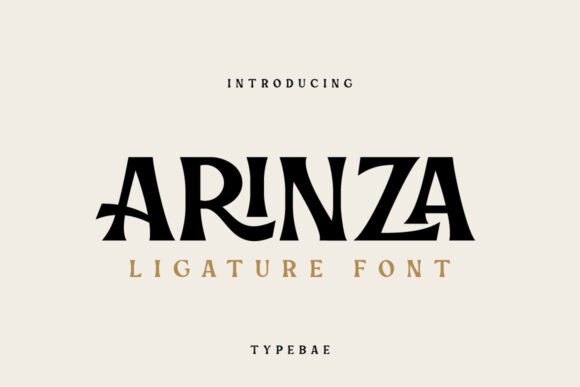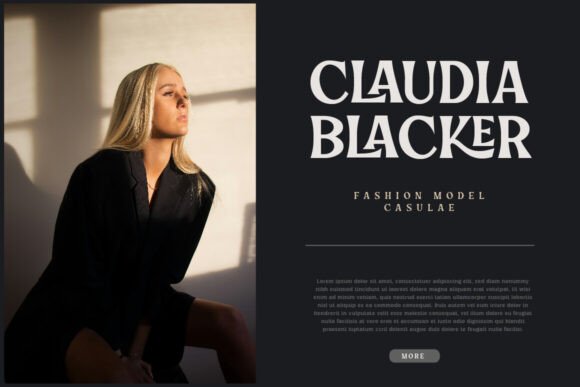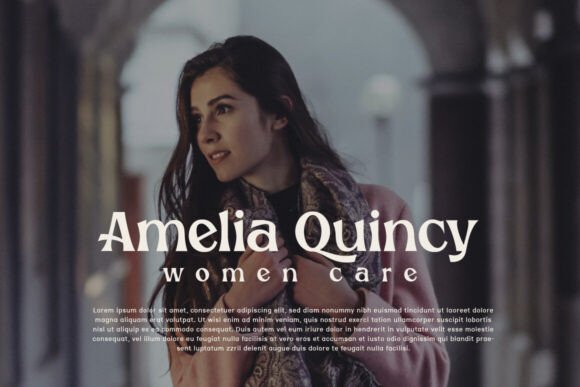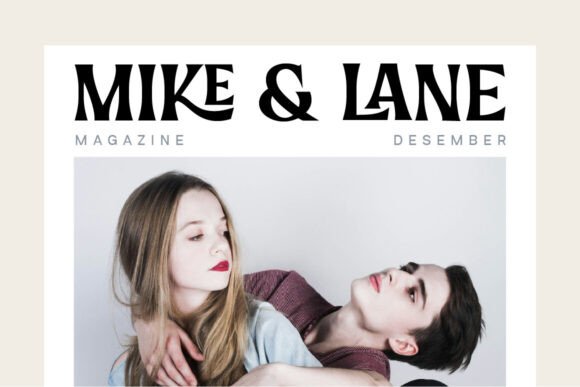
Arinza Font: Elegant Serif with Artistic Ligatures for Branding & Logo Design
About the Arinza Font
Introducing the Arinza Font, a beautifully crafted typeface designed to elevate your creative projects. Arinza is a display serif font crafted with a blend of modern classic elegance and stylish design. Featuring artistic ligature elements, it offers a distinctive and unique visual appeal. Its bold serif style and smooth letter curves create a captivating aesthetic, making it perfect for a variety of stylish branding needs from logos and packaging to high-end editorials.
Arinza excels in headline applications, short impactful texts on posters, and luxurious branding projects where its elegant boldness commands attention. It’s ideal for packaging of high-end products or creating a sophisticated logo. However, its strong visual presence makes it unsuitable for body text or UI elements requiring high readability.
Pairing Arinza with a clean sans-serif like Open Sans for body copy provides excellent contrast and readability. For a more playful feel, consider pairing it with a handwritten script font such as Pacifico, but use the script sparingly. A geometric sans-serif like Montserrat would also complement its modern elegance.
Arinza projects a confident, sophisticated personality. It’s best suited for brands aiming for a premium, classic yet contemporary image. Avoid using it for projects requiring a friendly or informal tone.
Arinza Font Usage Examples